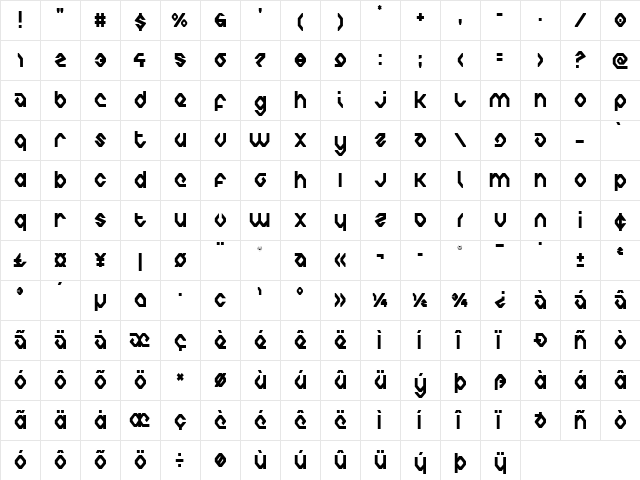
Charlie's Angles Condensed Condensed
Design Context for Charlie's Angles Condensed Typeface
Charlie's Angles Condensed takes a measured approach to typography — its balanced proportions and neutral character make it a reliable workhorse for both digital and print work. The condensed width makes it efficient for tight spaces without sacrificing legibility.